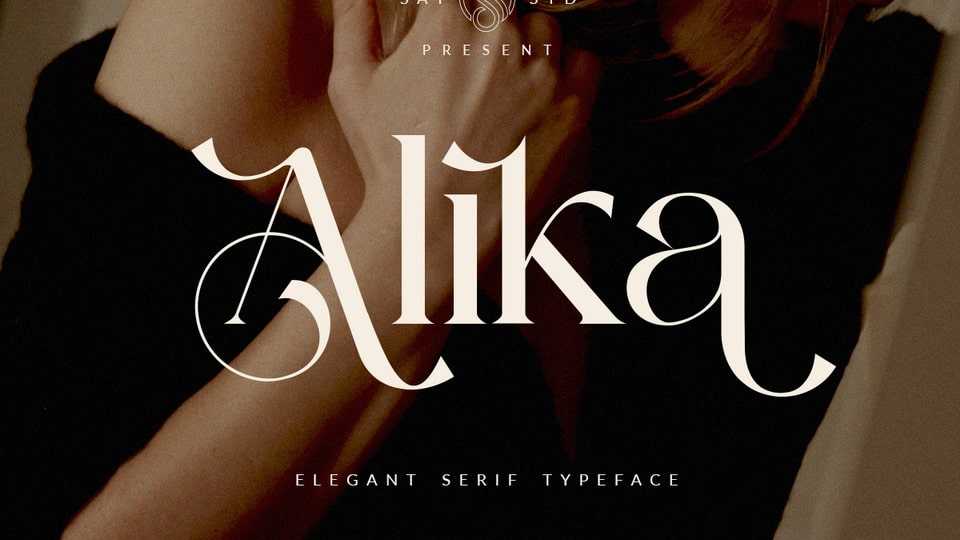
Download Alika font, an elegant, graceful, and timeless typeface. Alika is a versatile with a timeless, classic appeal, every letter has been hand-drawn and crafted with the upmost care.
Designer: Saystudio